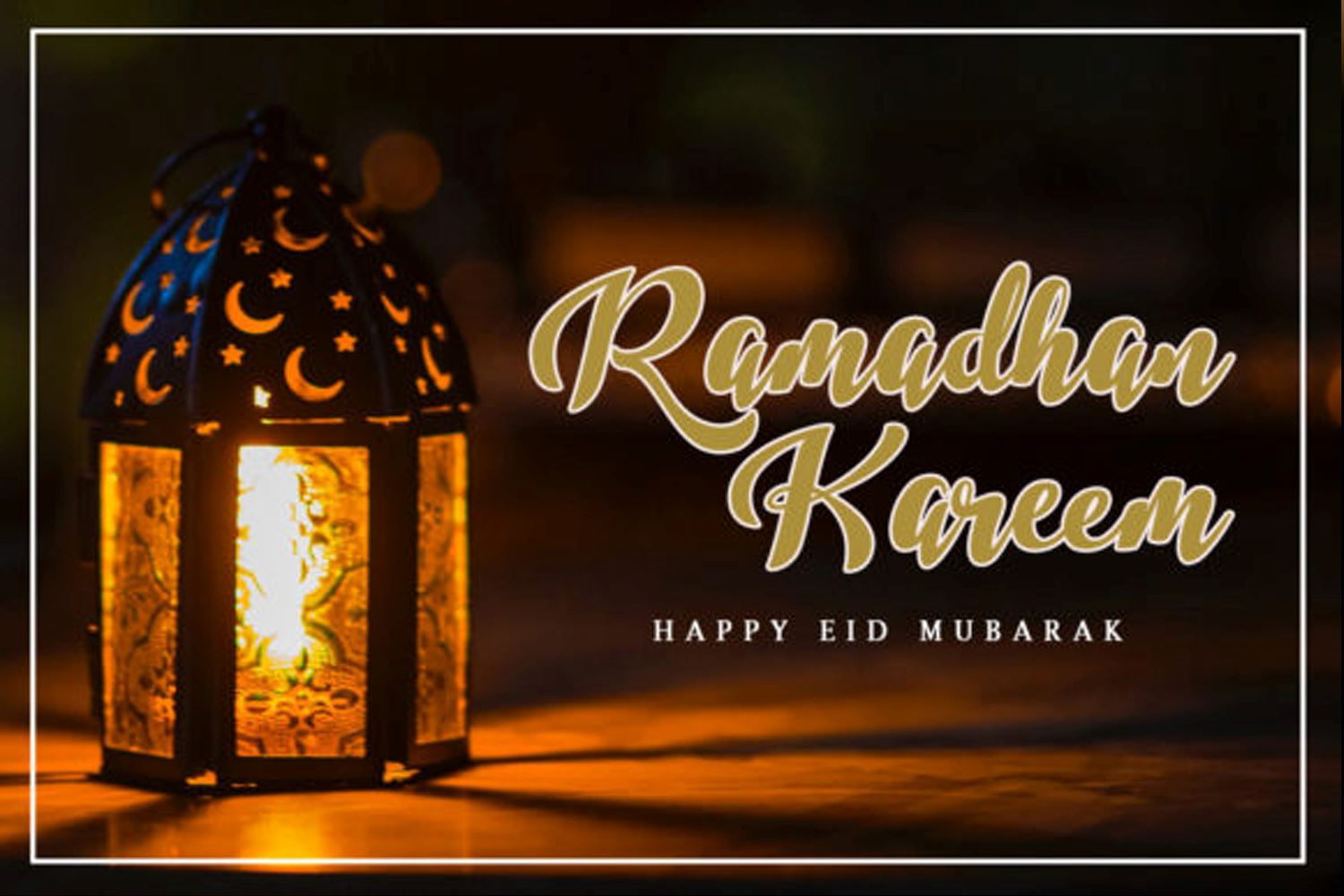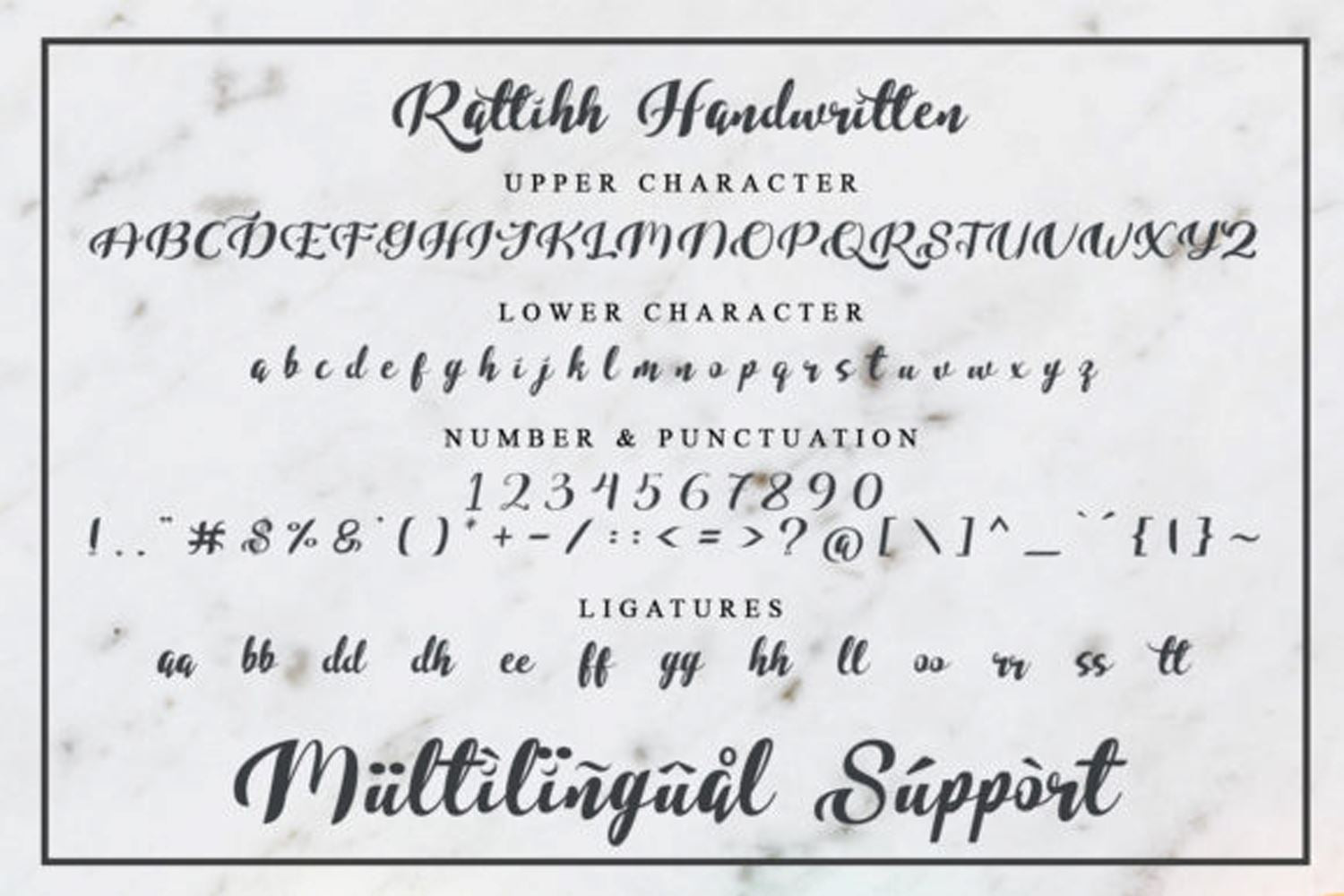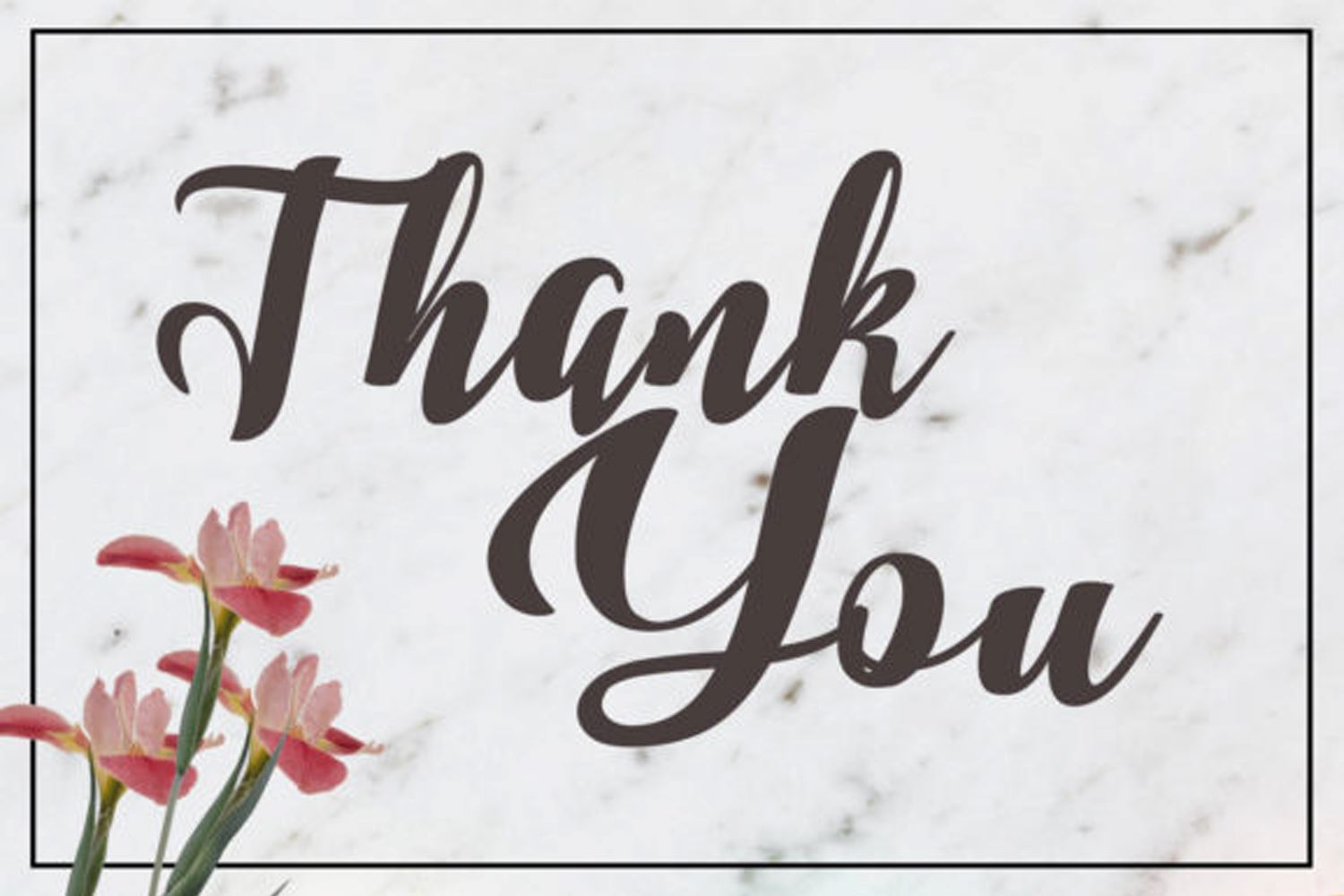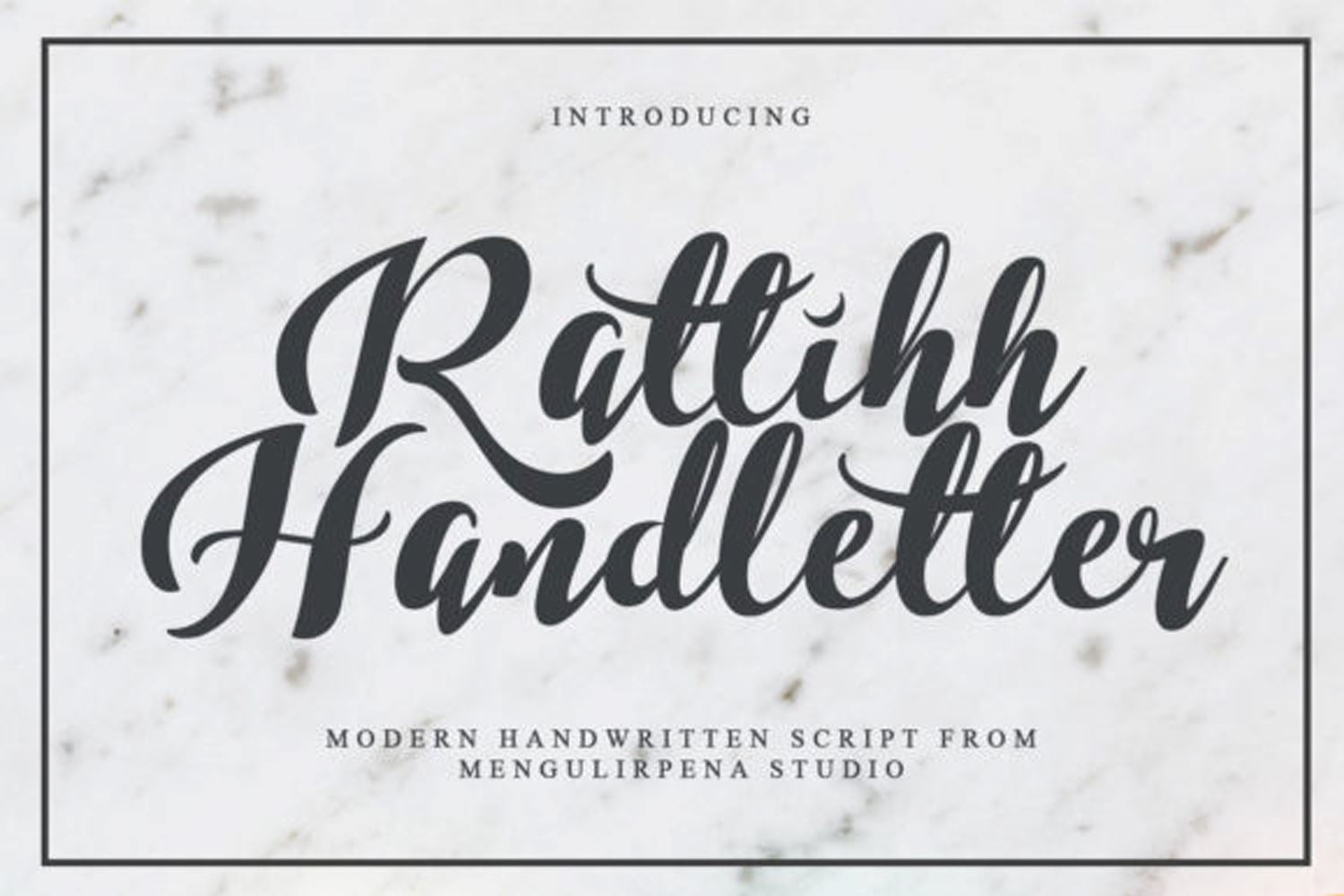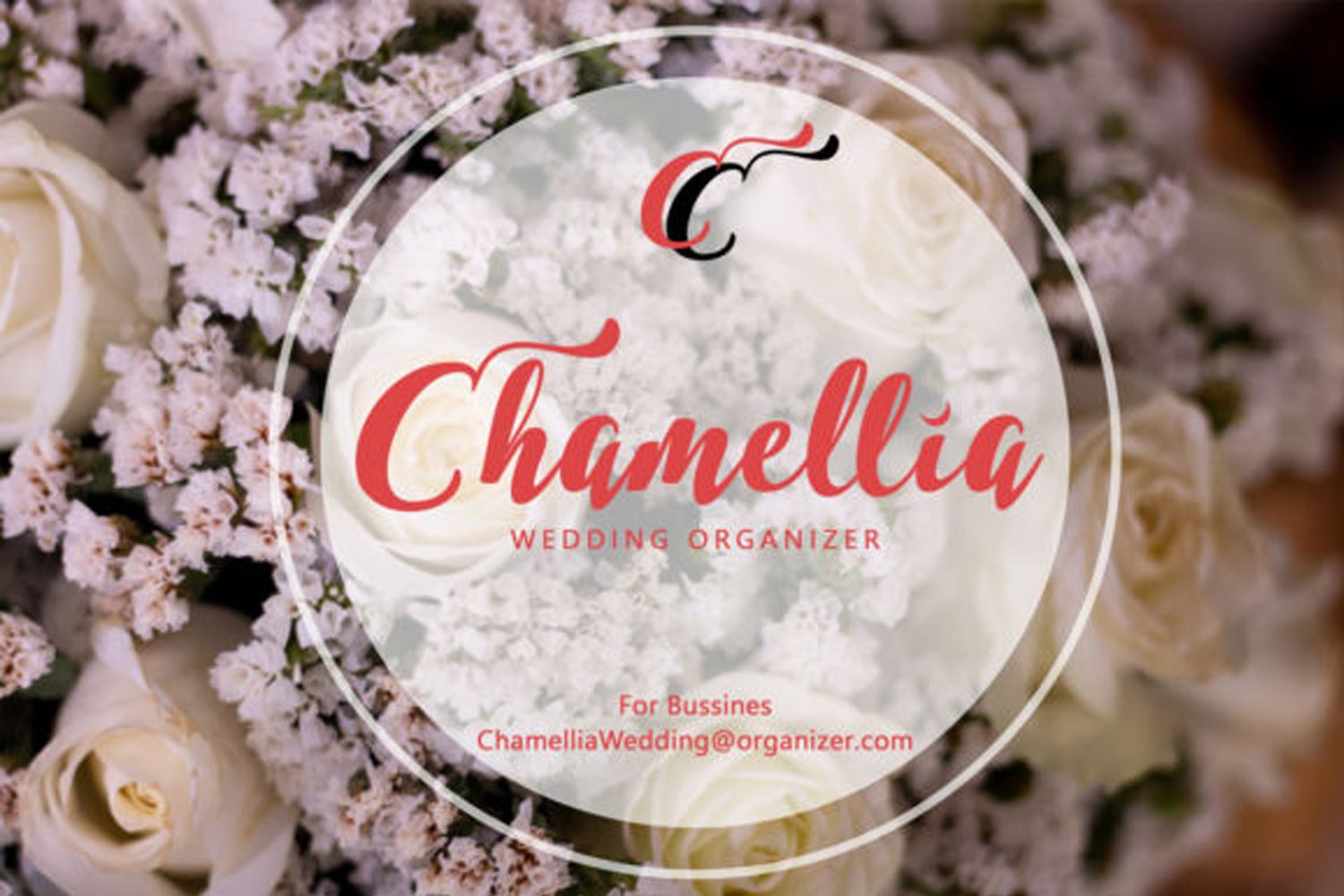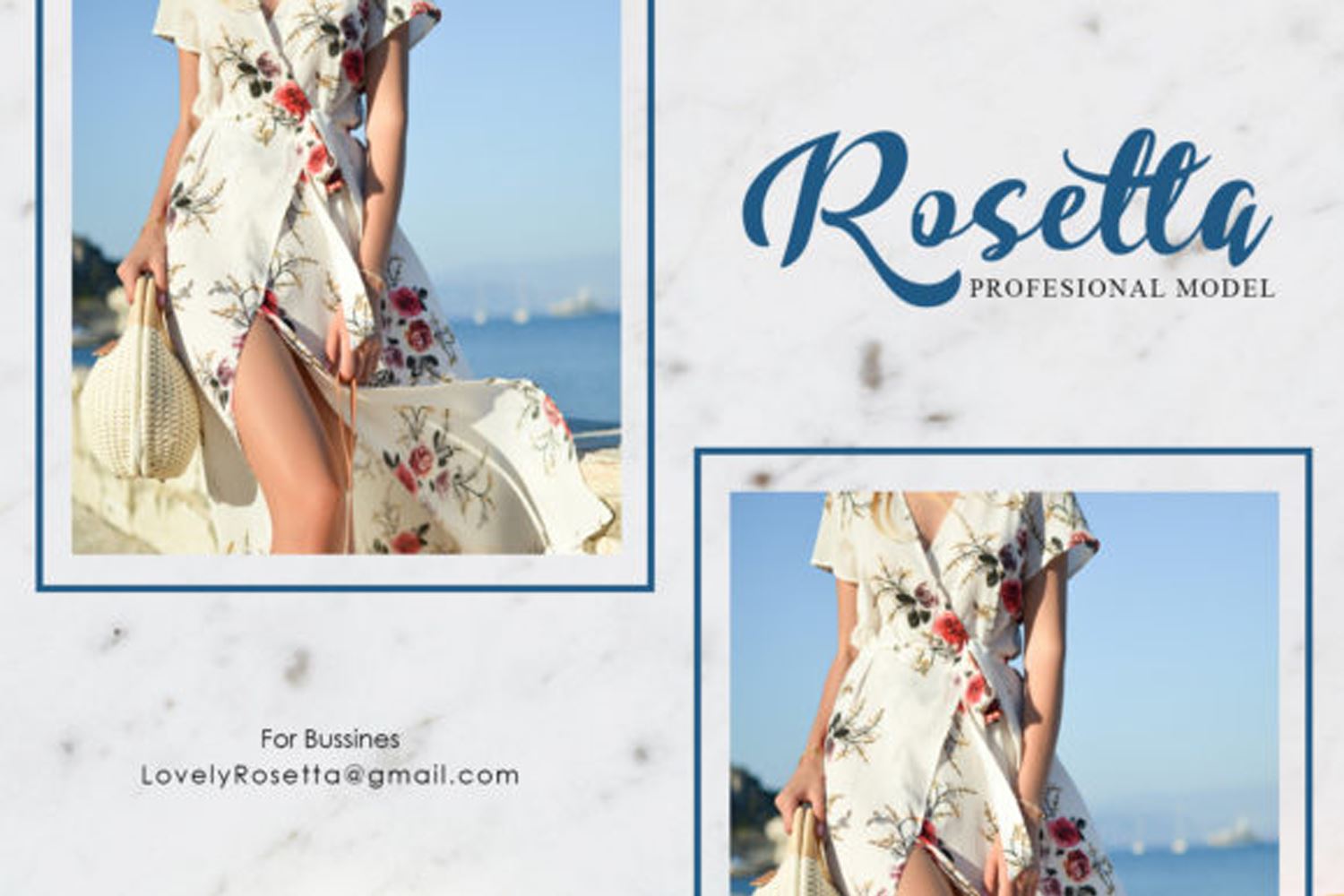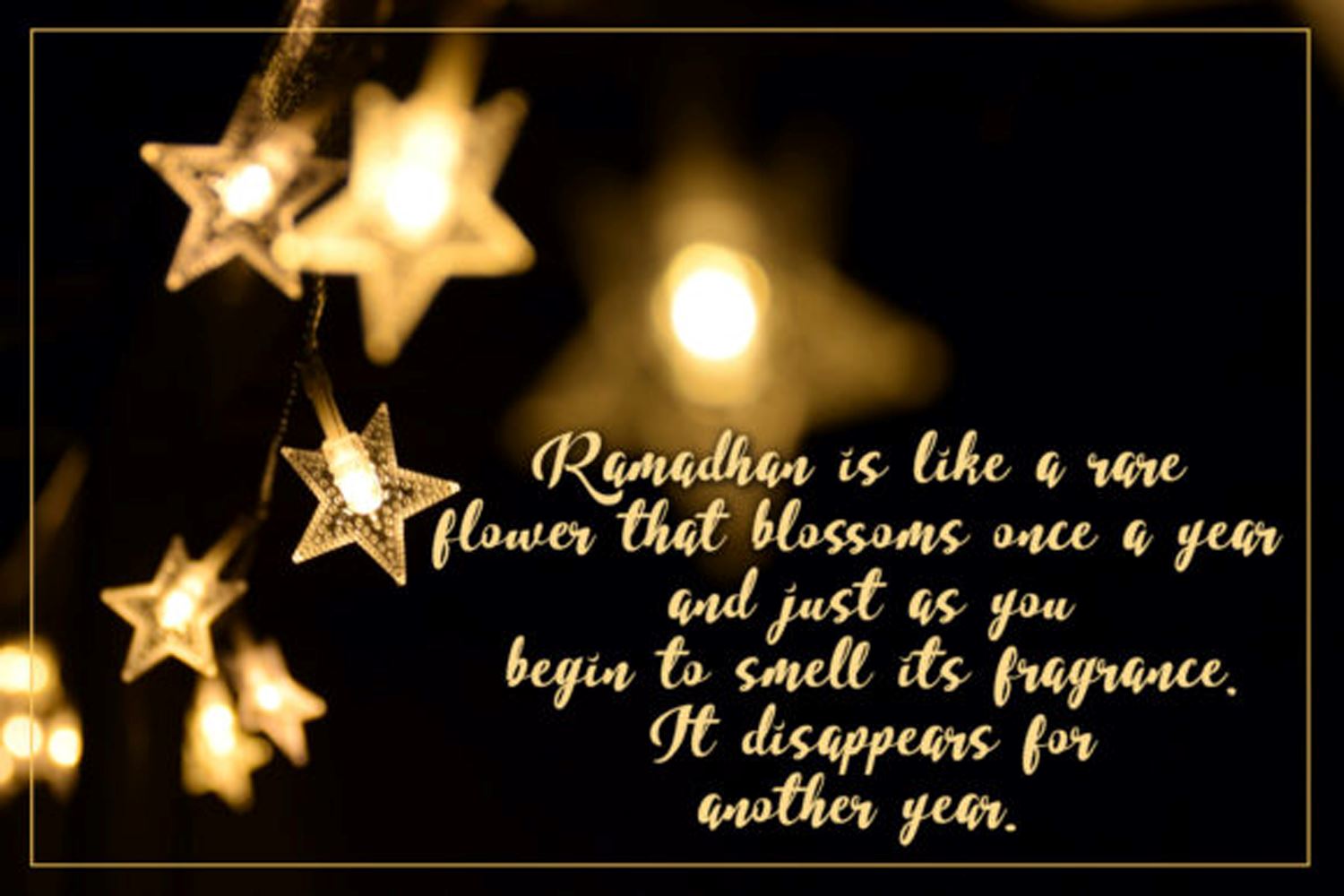
Rattihh Script
About Rattihh Script
Rattihh Script feels both elegant and flowing. It looks stunning on wedding invitations, thank you cards, quotes, greeting cards, logos, business cards and every other design which needs a personalized touch. Add it confidently to your projects, and you will love the results.